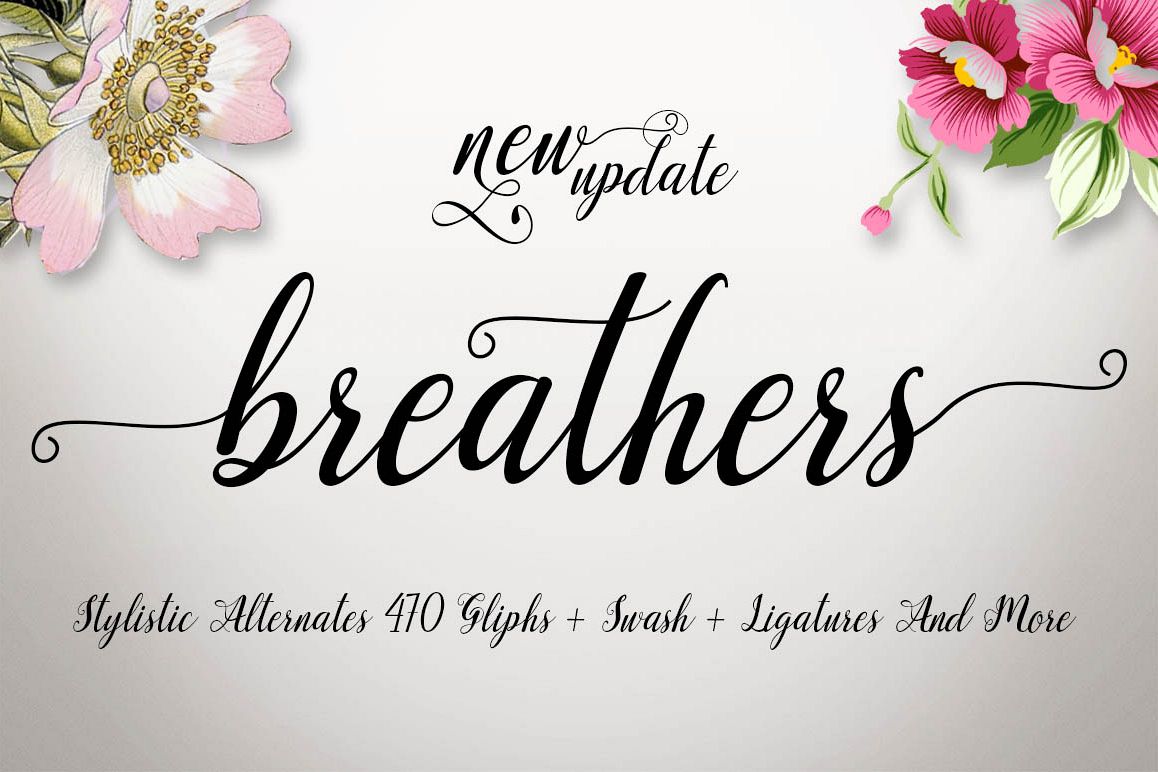
Breathers Script
Breathers
Script is a new variety of handlettered script font, allowing you to completely
make each word look stylish! With a smooth, petite and elegant style – it’s
long thin connections make it look luxurious and original.
Over 470 Glyphs included